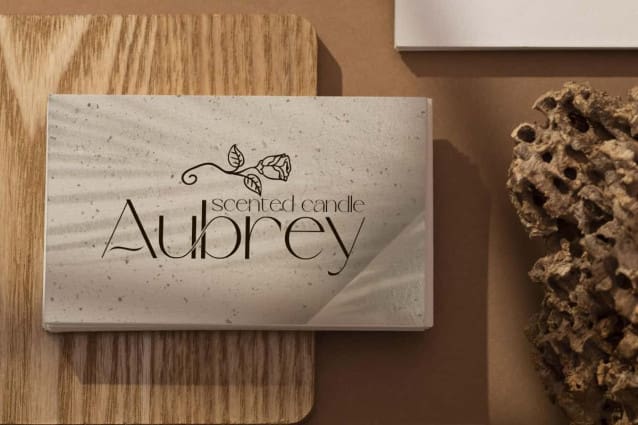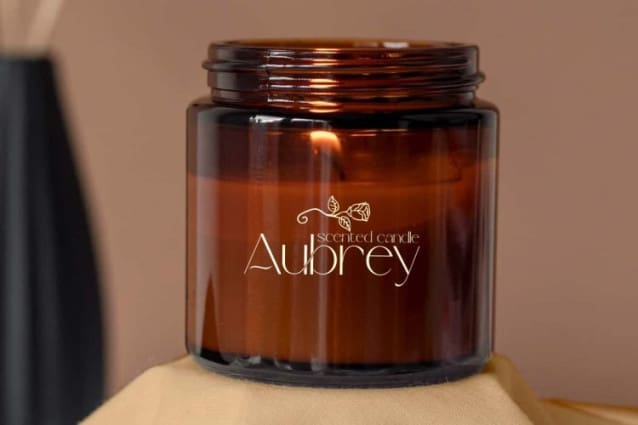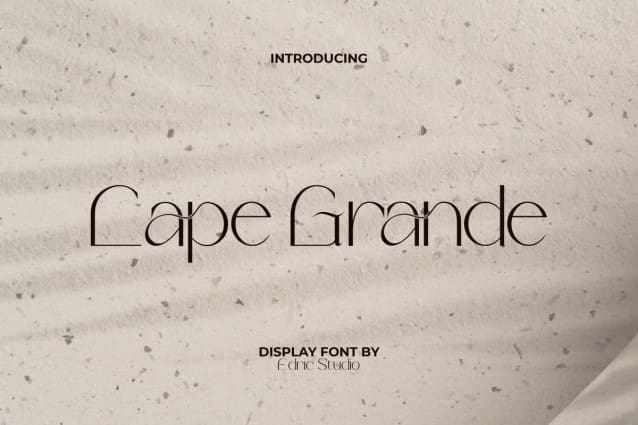
Cape Grande Font
Cape Grande Font is a stylish and modern display font created to bring a luxurious and elegant feel to any design. The combination of timeless elegance and contemporary style makes it a perfect choice for business card, cover designs, greeting cards, headers, invitations, label, logos, poster, printing, publishing, quotes, screen printing, signage, titles, websites, and more! It will give the impression of authentic handmade writing for a more branded look.
Cape Grande Font comes with a full set of Uppercase and Lowercase letters, Number, Punctuation, Symbol and a wide selection of interlocking Ligatures that will provide many options and variations in your final look. This font has its own beauty from its stunning shape. It can enhance your work through its clean and classic visuals. Flexible in any business identity, such as beauty clinic, botanist, boutique, cosmetic, fashion, florist, furniture, homeware, interior designers, jewelry, restaurant, skincare, spa salon, wedding, writer, and much more.